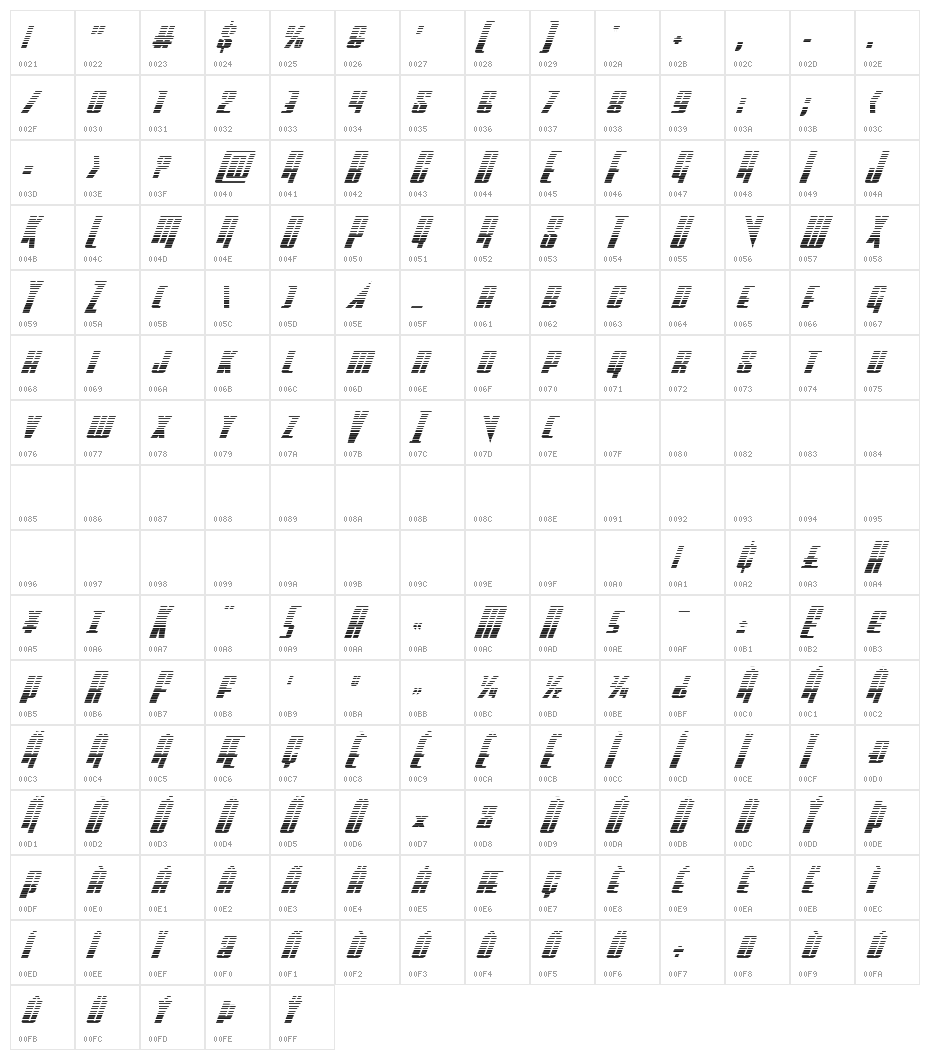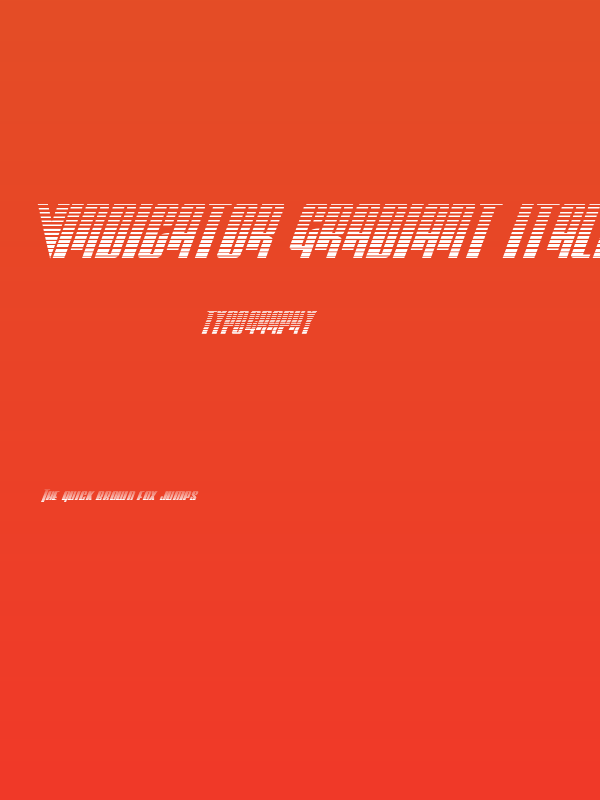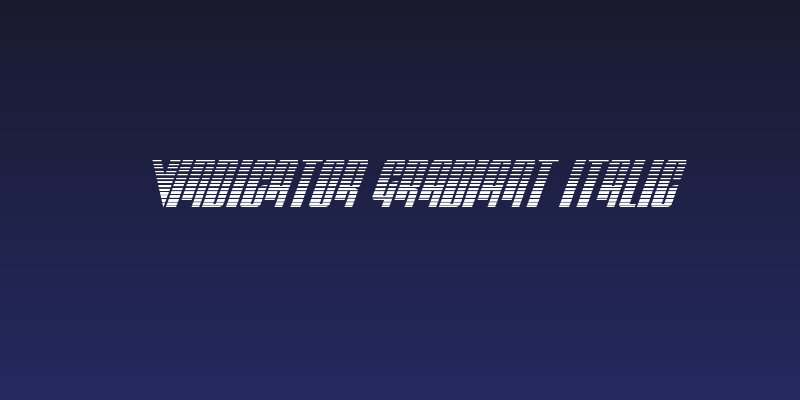
Vindicator Gradiant Italic Font
Vindicator Gradiant Italic Description
This font features a bold, italicized style with a distinctive gradient pattern that gives it a dynamic and futuristic appearance. The characters are composed of horizontal lines that create a sense of movement and energy. The uppercase and lowercase letters maintain a consistent style, with sharp angles and a slanted orientation that enhances the italic effect. The numbers and special characters are designed to match the overall aesthetic, making them suitable for a cohesive design. The font's unique style makes it ideal for projects that require a modern and edgy look.
| Overall Style | Futuristic, Dynamic |
| Proposed Projects | Ideal for sports branding, tech-related designs, video game titles, and dynamic posters. |